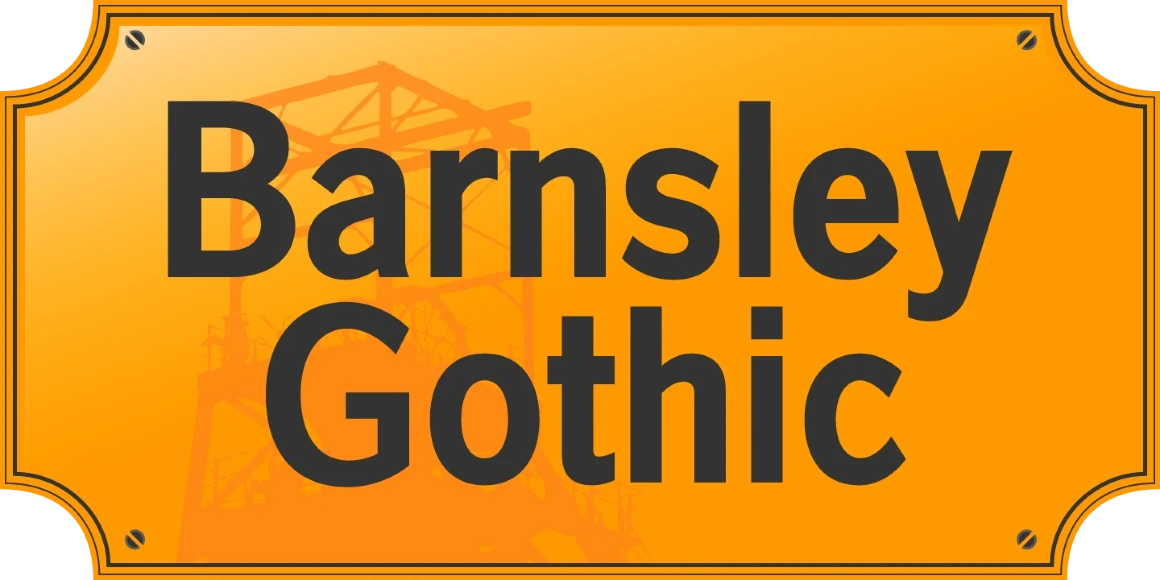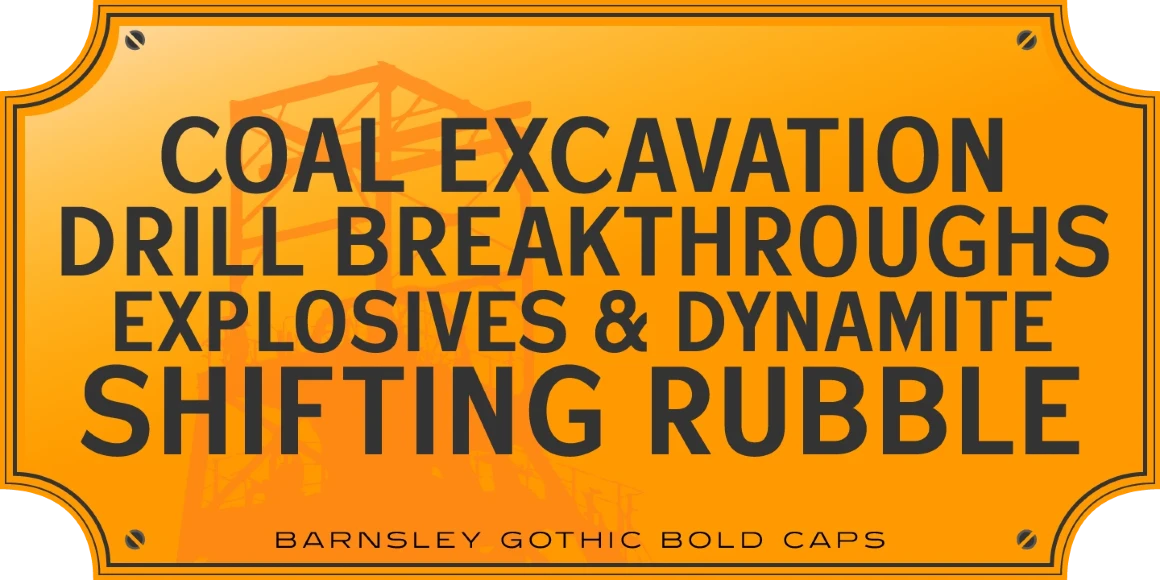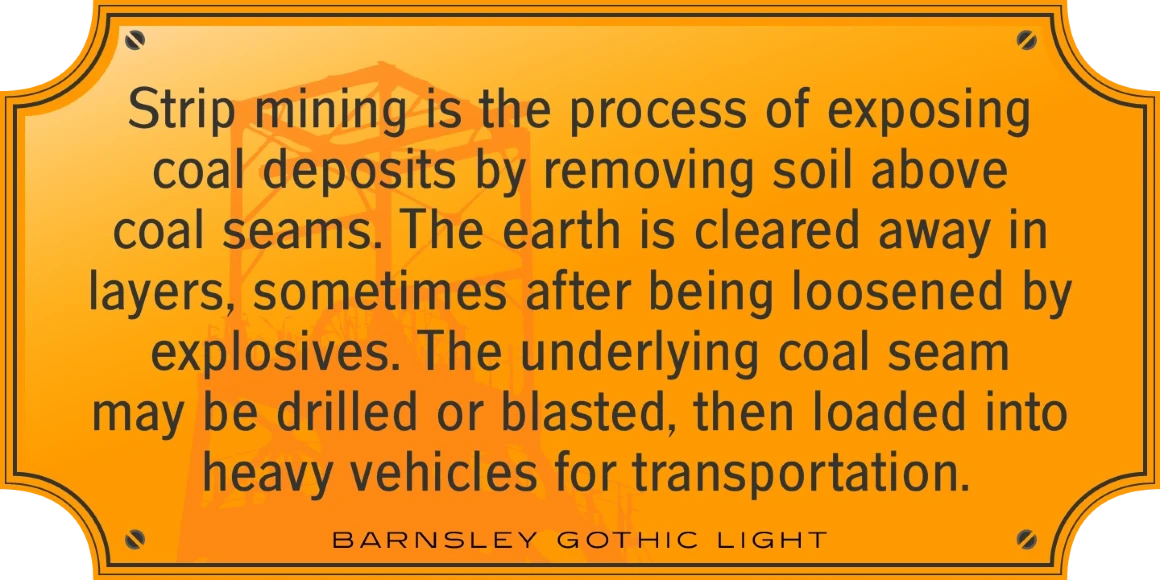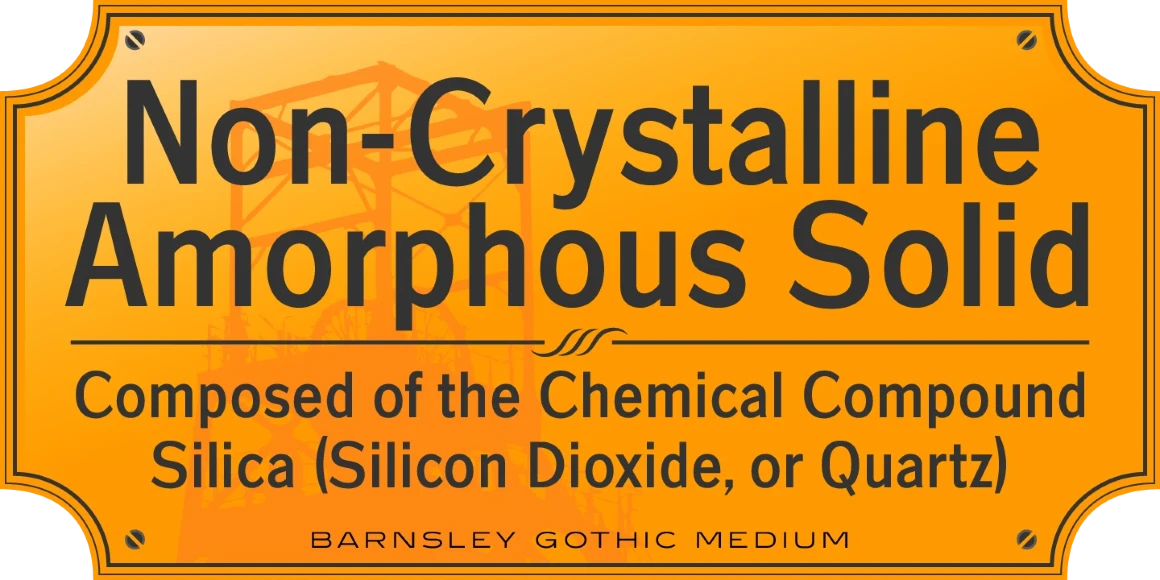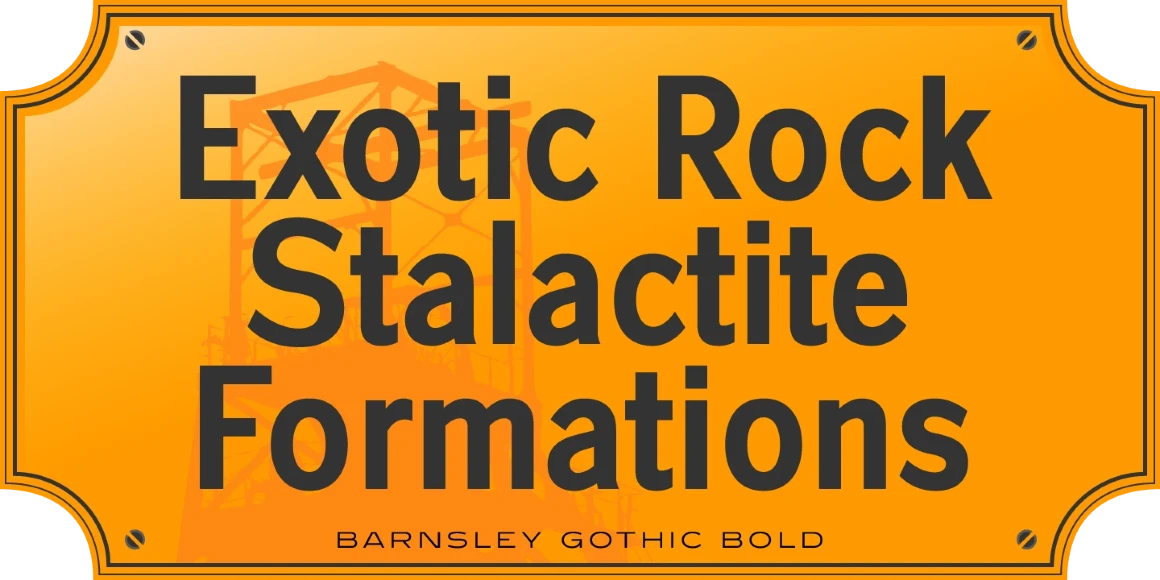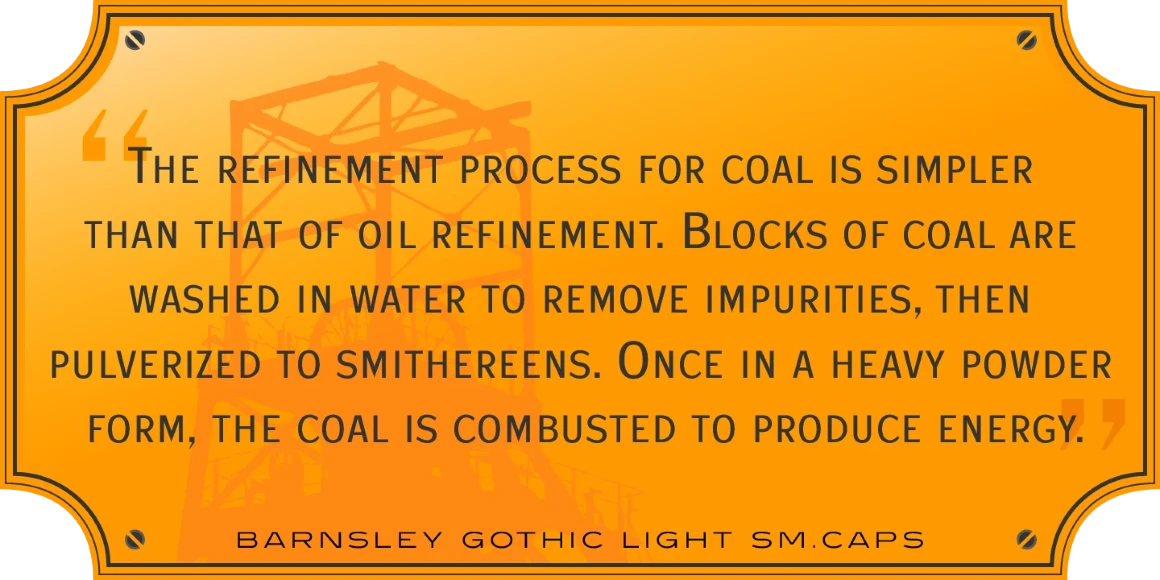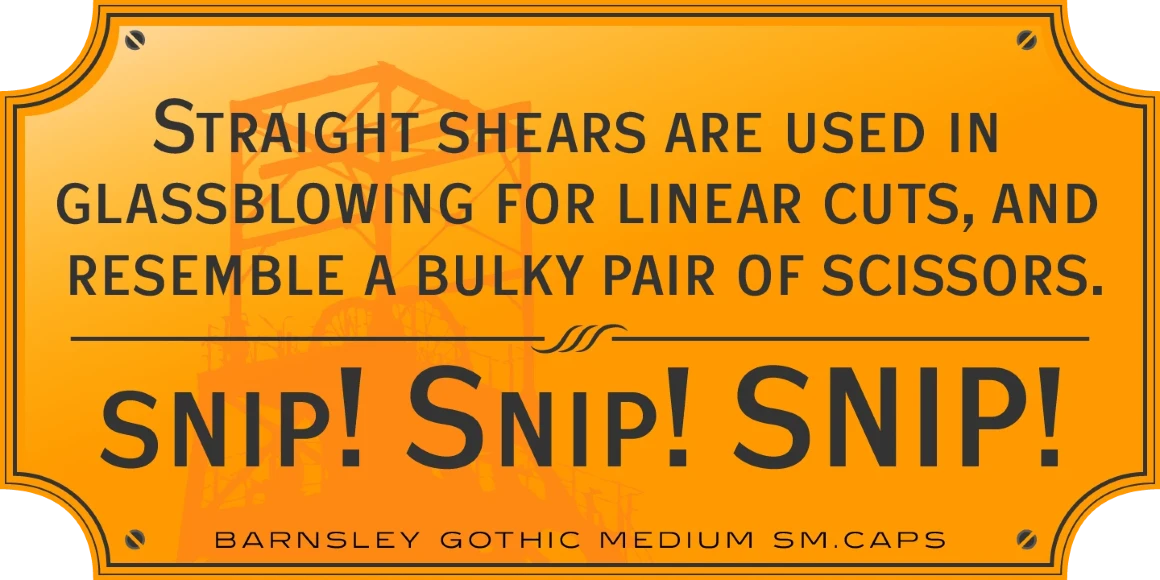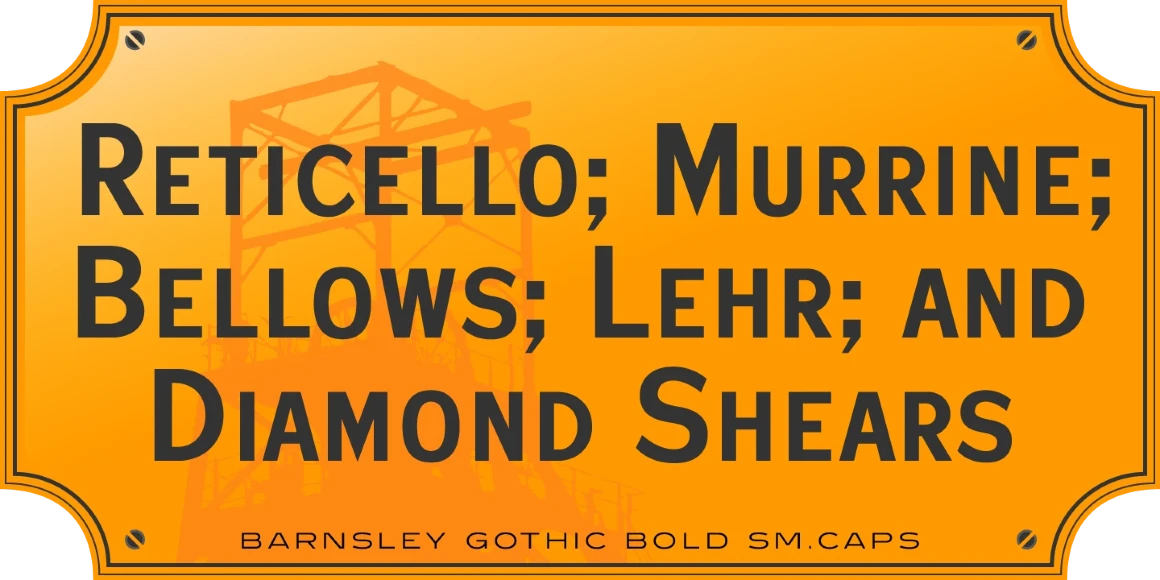
Barnsley Gothic
Barnsley Gothic is a condensed sans serif font family. It was designed by Steve Jackaman (ITF) in 2017. It was developed alongside its sister font family, Steelplate Gothic Pro, and includes support for Latin 1 and Central/Eastern European languages. The family is named after the town of Barnsley, a coal mining town in Yorkshire, England. In 1960, there were roughly seventy collieries within a fifteen-mile radius of Barnsley town center, however the last of these closed in 1994. Barnsley Gothic has a straightforward, industrious, no-nonsense feel, much like the town it shares a name with. Always ready to do the heavy lifting in any design project, Barnsley Gothic is the quintessential workhorse font family.